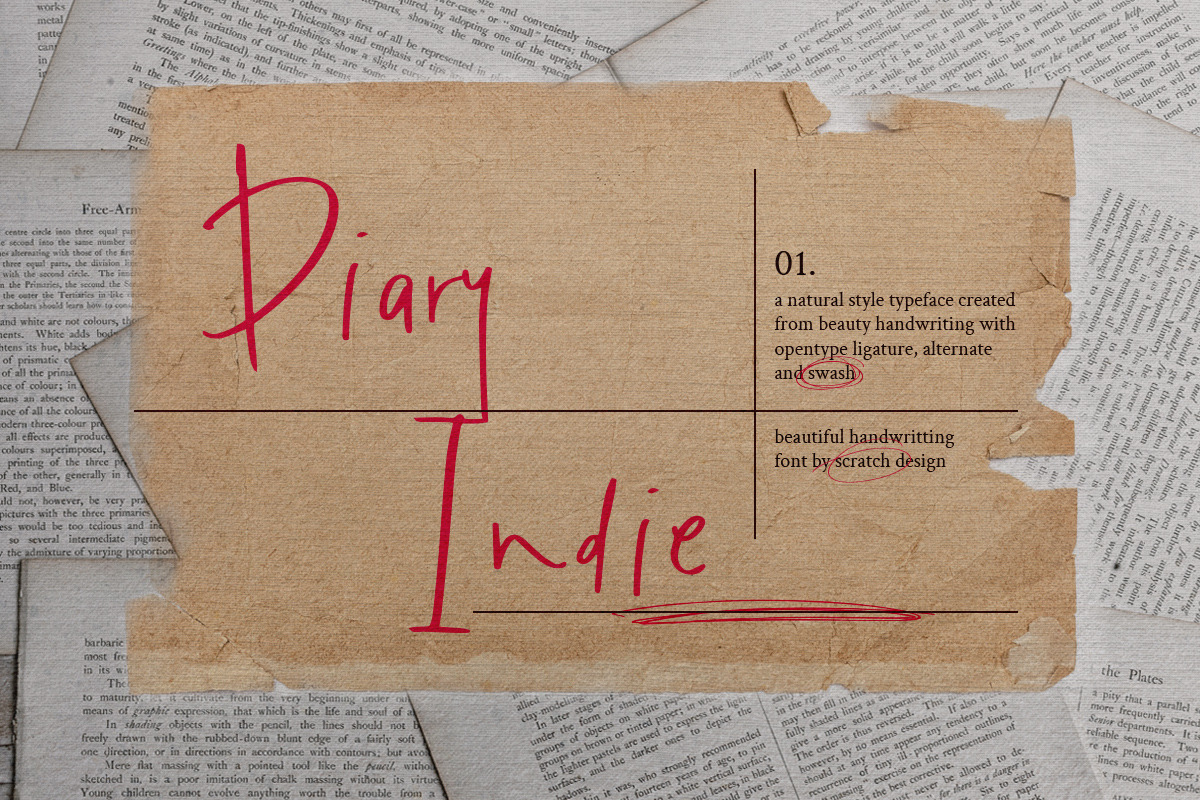
Diary Indie | Handwritten Font
Introducing "Diary Indie" it's an authentic handwritten with natural character. Perfect for creating Instagram quote posts, novel or book TrueType, invitations, labels, packaging, stationary, etc. This is a full font, which features all uppercase and lowercase letters, numbers and punctuation, multi-lingual, and ligatures. Some swash elements are included as bonuses to bring attention to the fun of authentic Diary Indie!